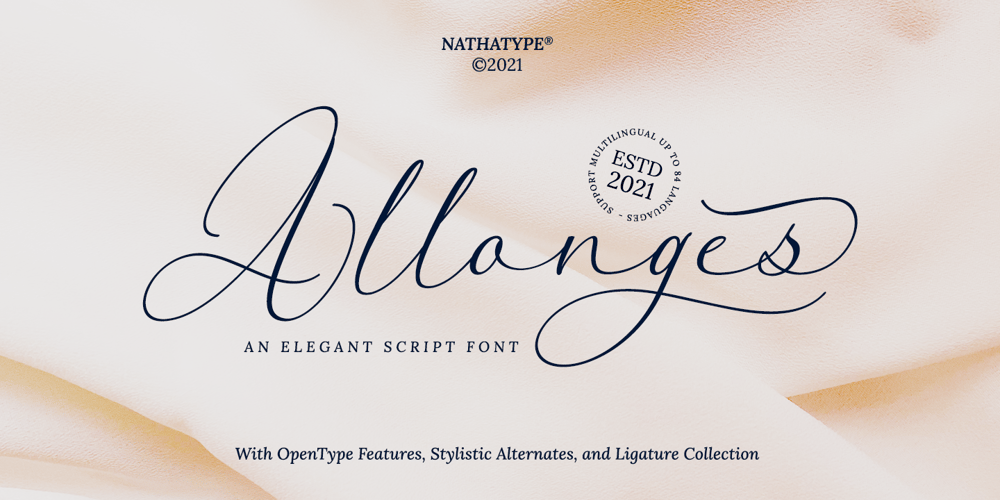
Allonges Font Family was designed by Donis Miftahudin and published by Nathatype. Allonges contains 1 styles and family package options. Looking for a font that will make your branding stand out? Do you sometimes have an appetite for a bit more wholesome typography? Looking for a fabulous, stylish, and adventure font? We’ve got what you want.Allonges -A Script FontAlllonges script is suitable for today’s growing market design, this font has a model trendy, natural and soft, with this font you can take advantage of an occasion in every moment. Allonges is a new modern script font with an irregular base line. Style trendy and feminine. Allonges looks beautiful for branding, logos, wedding goods, greeting cards, fashion, lookbook, marketing promotions.Our font always includes Multilingual Support to make your branding reach a global audience. Features: Ligatures Stylistic Set Swahes PUA Encoded Numerals and Punctuation Thank you for downloading premium fonts from Natha Studio